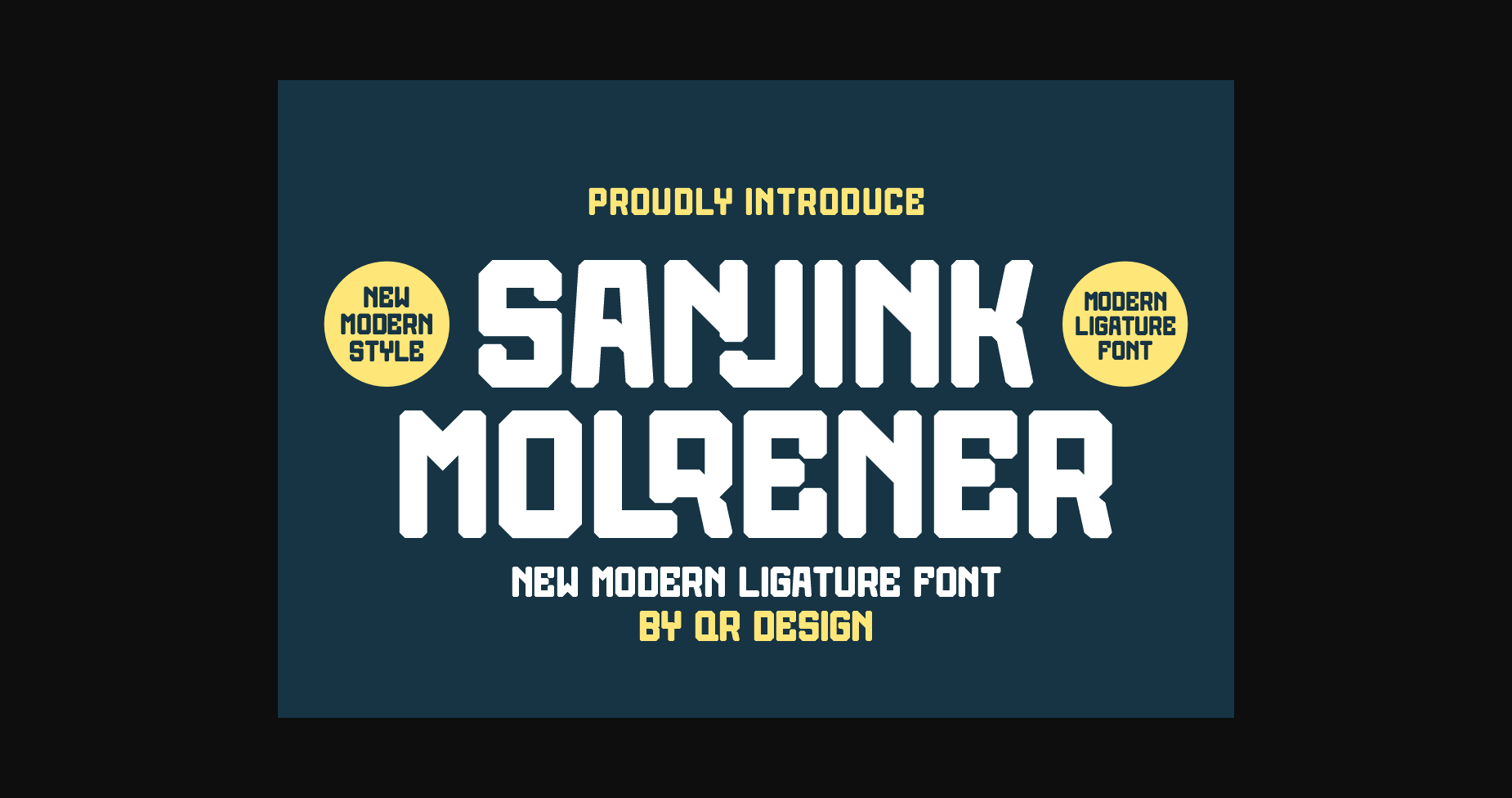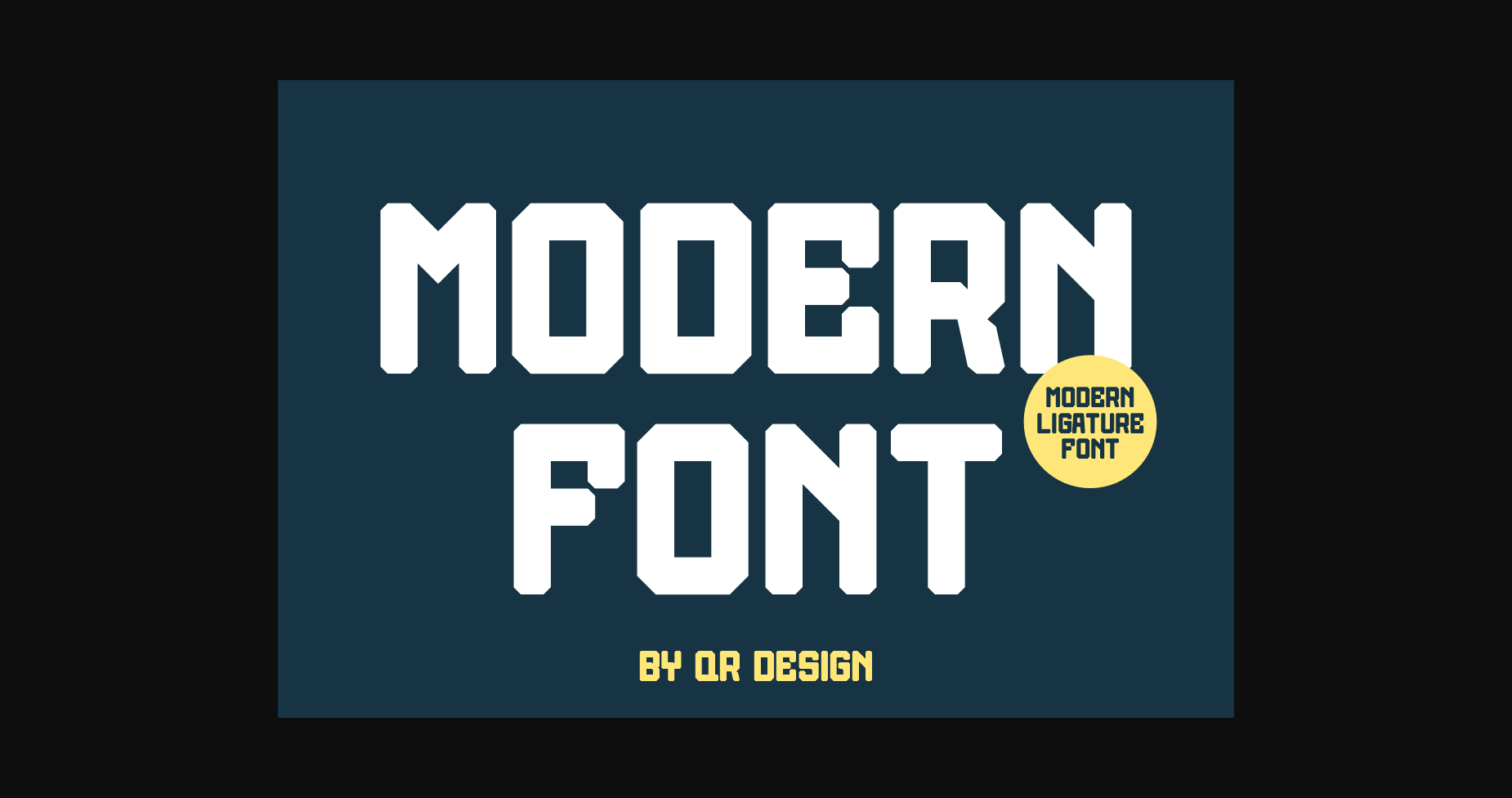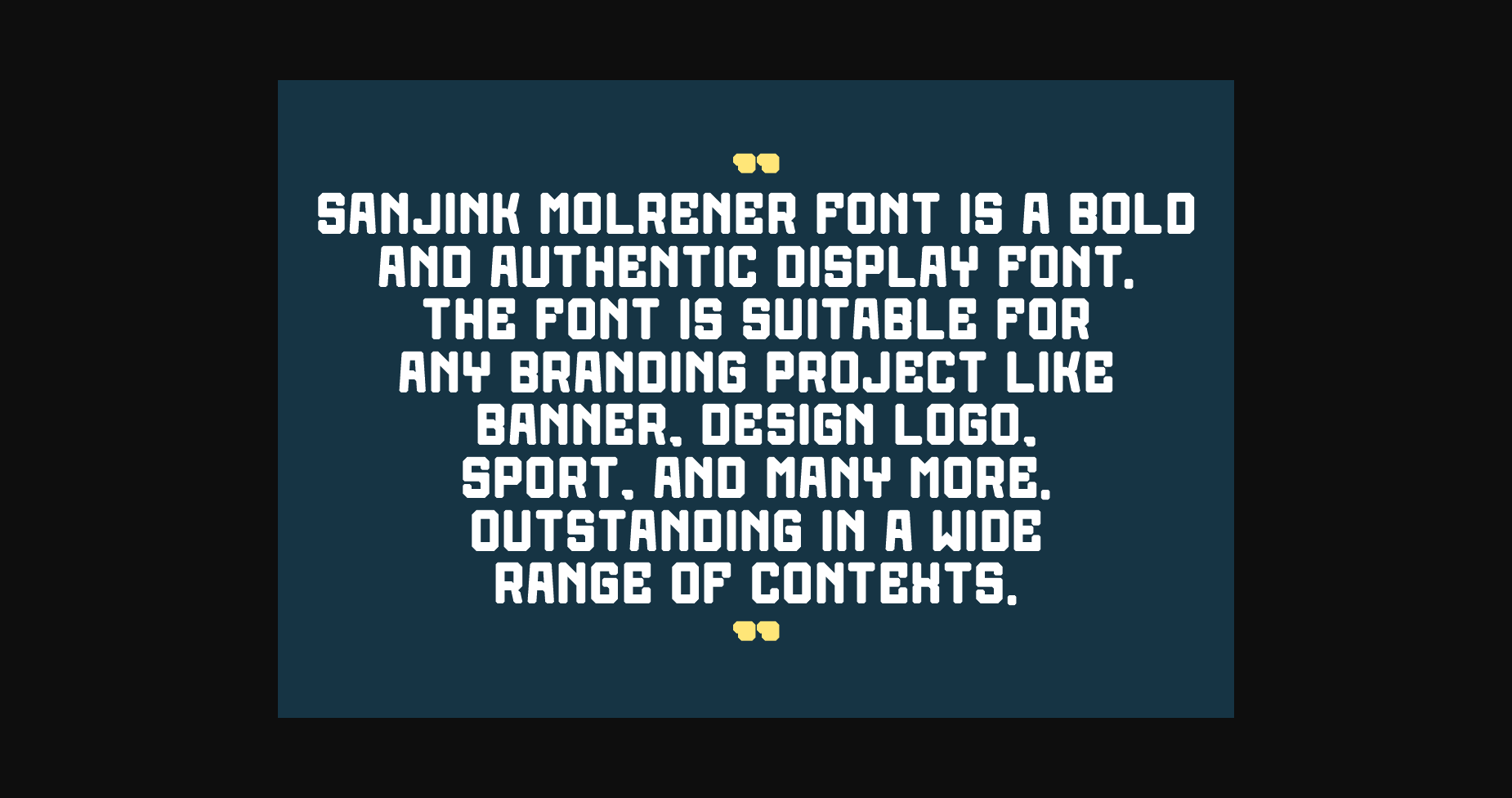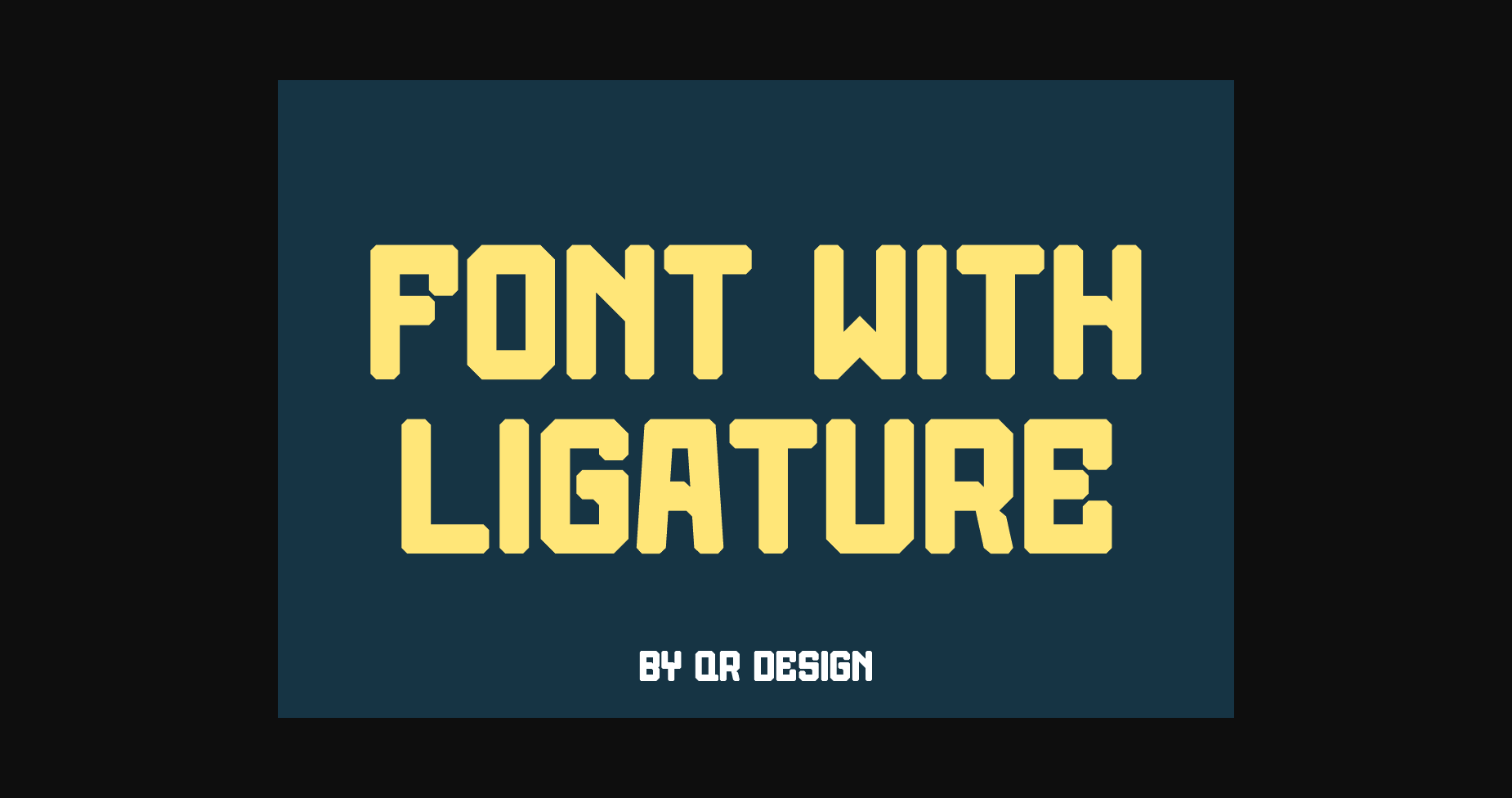
Sanjink Molrener Font
About Sanjink Molrener Font
Sanjink Molrener Font is a bold and authentic Sans Serif font. This lovely font is suitable for any branding project like logo, t-shirt printing, sport, and many more. Outstanding in a wide range of contexts.